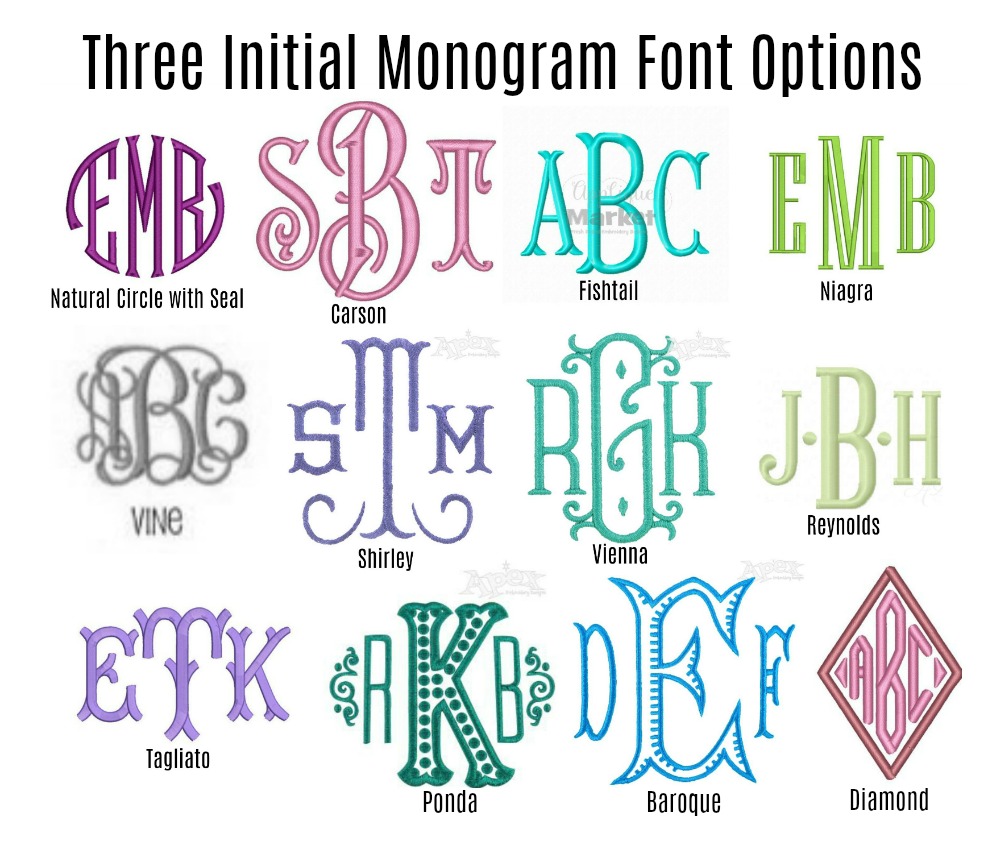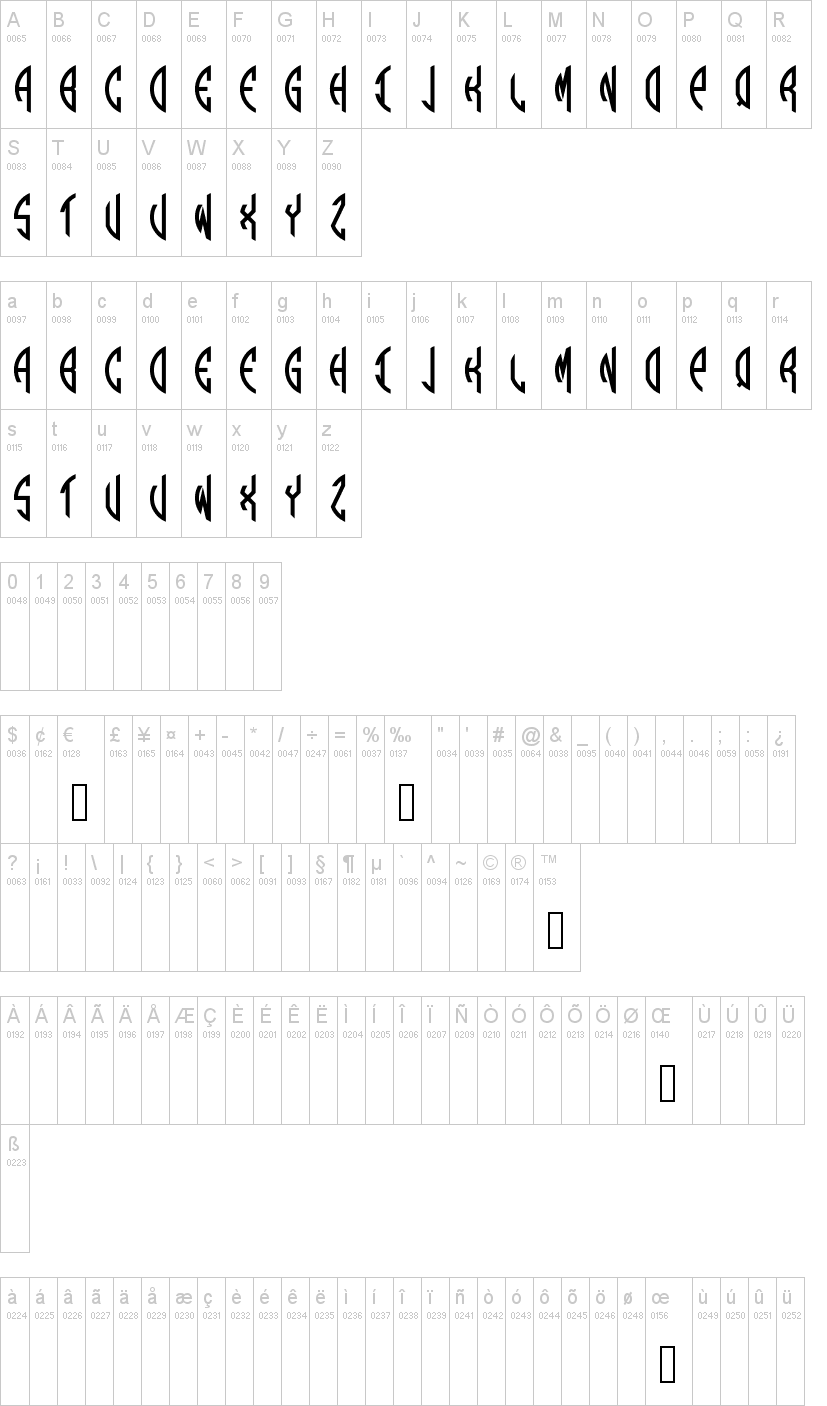
Discover The Best Monogram Fonts At Dafont
Are you looking to create a logo, a design for a t-shirt, or even a monogram font for wedding invitations? Choosing the right font can be a difficult and time-consuming task, but it doesn't have to be. With dafont's selection of monogram fonts, you can find the perfect font for your project in minutes.
The Benefits of Monogram Fonts
Monogram fonts are a great way to add a personal touch to your projects. They can be used to create logos, designs for t-shirts, wedding invitations, and more. Monogram fonts are especially popular for wedding invitations, as they can help to personalize each invitation.
Monogram fonts are also great for creating logos. They are often used by companies to create a unique and recognizable logo. Monogram fonts can also be used to create designs for t-shirts and other clothing items. They can be used to create simple designs or complex ones, depending on the font and the design you choose.
Choosing the Right Monogram Font
When choosing a monogram font, you should consider the size, weight, and style of the font. The size of the font should be proportional to the size of the design. If the design is larger, then you should choose a larger font size.
The weight of the font can also make a difference. A heavier font will stand out more, while a lighter font will be more subtle. The style of the font should also be taken into consideration. There are a variety of styles to choose from, such as serif, sans-serif, and script.
The Best Monogram Fonts at dafont
dafont has a great selection of monogram fonts that can be used for any project. The selection includes fonts such as "Sweetheart," "Elegant Monogram," and "Gothic Monogram." Each font has its own unique style and can be used to create a variety of designs.